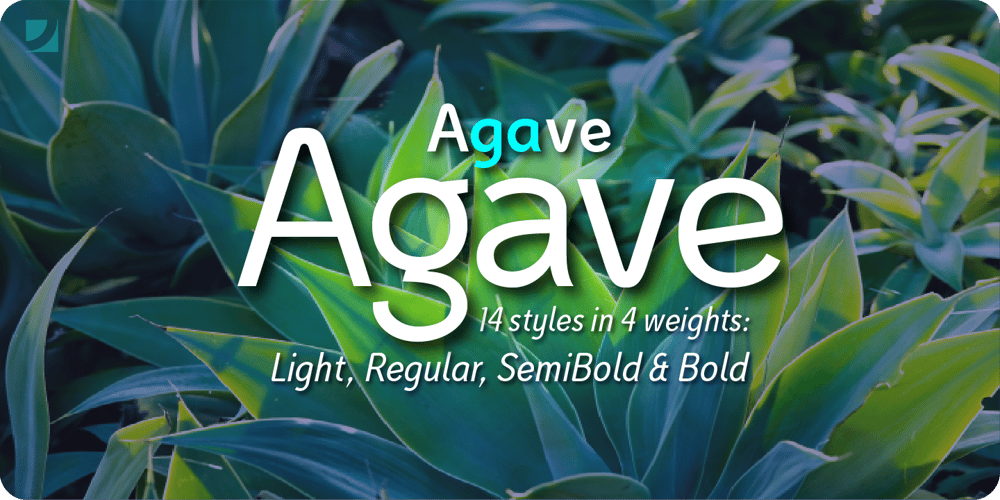
Agave Font Family was designed by John Nahmias and published by Jonahfonts. Agave contains 14 styles and family package options. Agave a sans-serif family with 14 styles and 4 weights. The Light, Regular & Semibold contain Italics and Condensed styles, the Bold comes only in its’ upright and Italic styles. A text family designed to easily be read in lower point sizes as well as larger display sizes. Providing a legible print, web or e-book family suitable for reading and not calling attention to its’ letter-graphics.